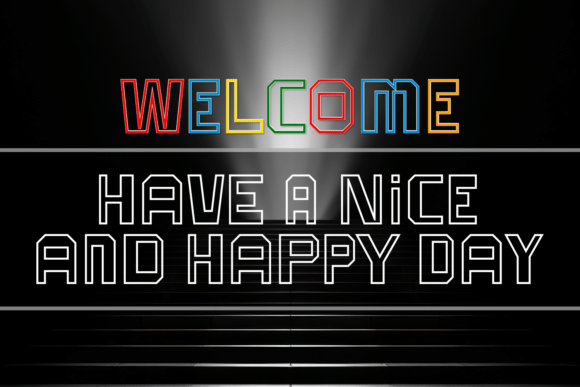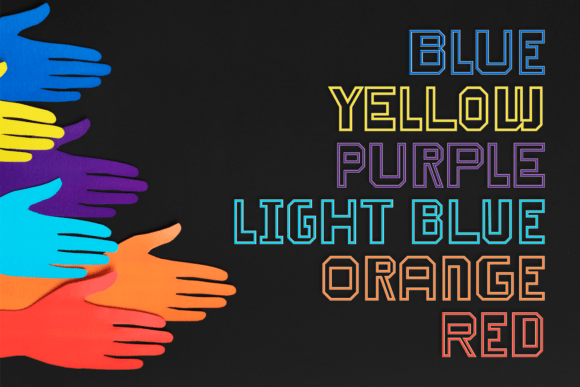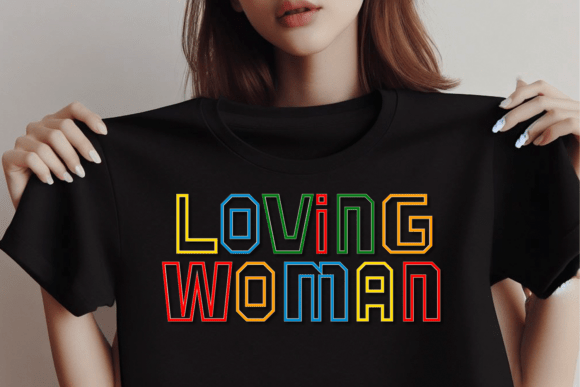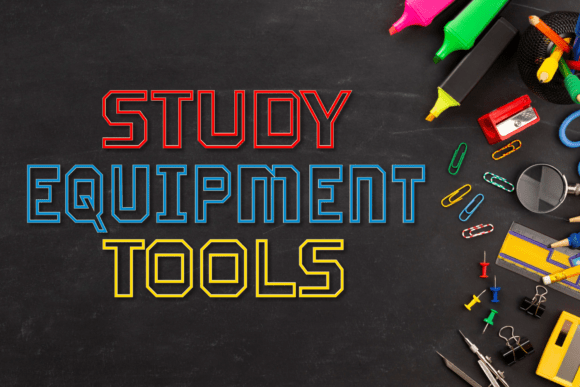
The ‘First Coming’ Font: A Modern Elegance for Your Creative Projects
Have you ever been in the middle of a design project, and suddenly, you just can’t seem to find the right font? I recall a particularly frustrating moment when I was working on a branding project for a client, and I needed a font that exuded both modern sophistication and genuine authenticity. That’s when I stumbled upon the ‘First Coming’ font, and it completely transformed my design. In this article, we’ll dive into the world of ‘First Coming’, exploring its features, uses, and what makes it an exceptional addition to any creative project.
A Personal Encounter with ‘First Coming’
I was working late one evening, trying to meet a tight deadline, when I first laid eyes on ‘First Coming’. I was immediately drawn to its sleek lines, elegant curves, and the way it seemed to dance across the page. It was as if the font was saying, “Hey, I’m here to elevate your design and make it shine!” And shine it did. The ‘First Coming’ font added a touch of sophistication and whimsy to my project, making it stand out in a crowded market.
An Honest Review of ‘First Coming’
So, what makes ‘First Coming’ so special? Let’s take a closer look:
- ✨ Exceptional versatility: ‘First Coming’ is perfect for accents, apparel, branding, and more.
- ✅ Smooth design: The font’s flawless design makes it ideal for book jackets, greeting cards, and other visual materials.
- 💫 Modern elegance: ‘First Coming’ brings a touch of sophistication and glamour to any design.
However, no font is perfect, and ‘First Coming’ is no exception. Here are a few quirks to keep in mind:
- 🤔 Limited use in body text: While ‘First Coming’ excels in headings and accents, it may not be the best choice for lengthy body text.
The Backstory Behind ‘First Coming’
The ‘First Coming’ font was designed with the intention of creating a typographic masterpiece that blends modern elegance with genuine authenticity. The designer aimed to craft a font that would be both versatile and sophisticated, making it perfect for a wide range of creative projects. While the real story behind ‘First Coming’ might be shrouded in mystery, its impact on the design world is undeniable.
| Font Name | First Coming Font |
| Author | Wankriss |
| What makes ‘First Coming’ so special? | ‘First Coming’ is a unique blend of modern elegance and genuine authenticity, making it perfect for a wide range of creative projects. |
| Is ‘First Coming’ suitable for body text? | While ‘First Coming’ excels in headings and accents, it may not be the best choice for lengthy body text. |